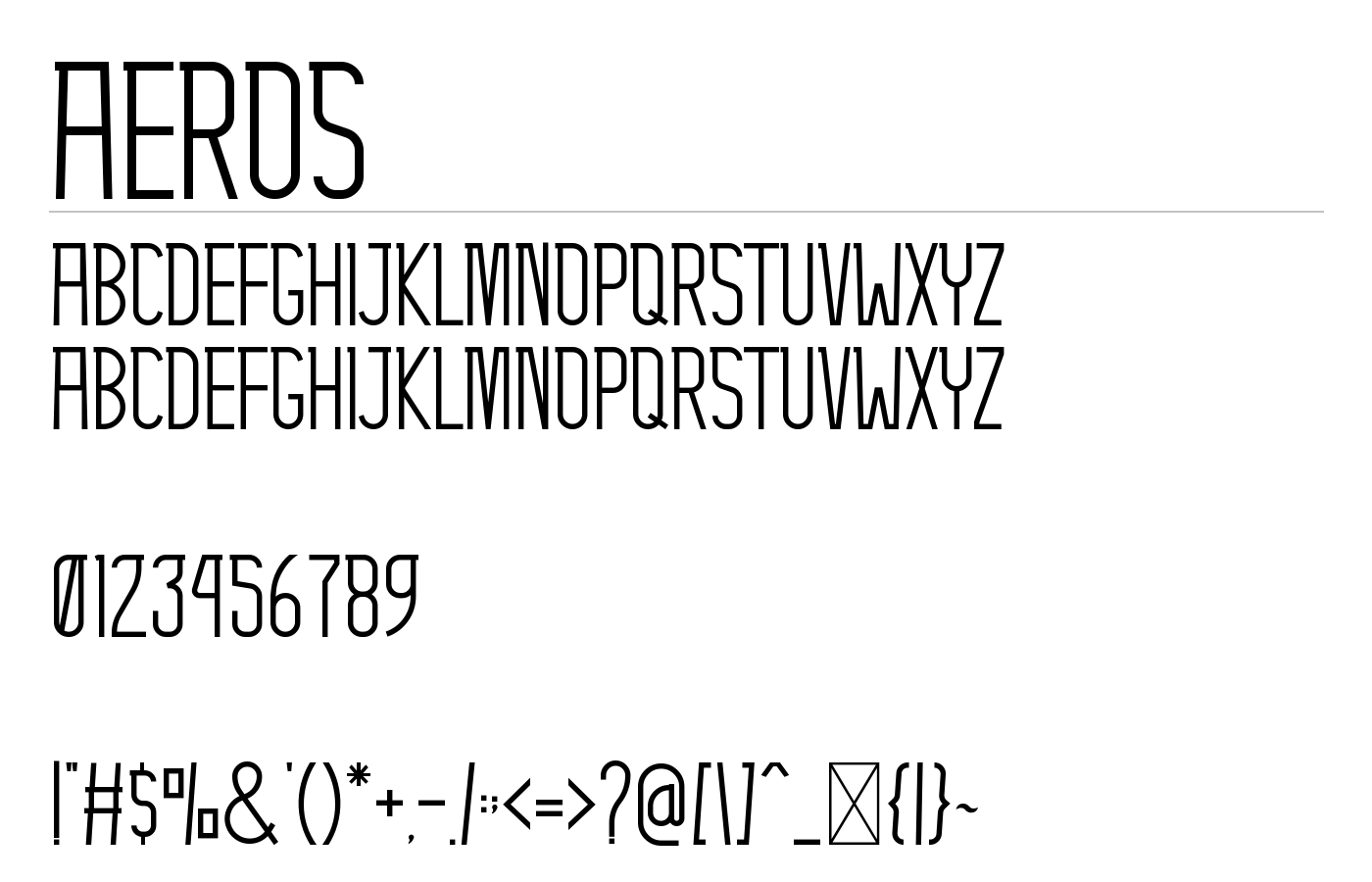
Aeros is a tall, narrow sans serif font with a modern and sleek appearance. Its condensed letterforms and consistent stroke weight create a minimalist and sophisticated style, making it ideal for contemporary branding, headlines, and editorial design where clean, impactful text is needed. This font works well in projects that demand a sharp and stylish look without sacrificing readability.
Aeros Font